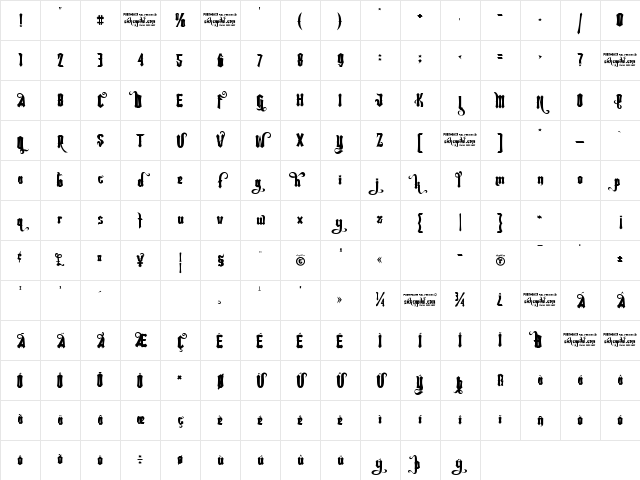
Rebel Pixy Regular Free Font
Rebel Pixy Regular
Rebel Pixy Family
Rebel Pixy Regular
Complete Rebel Pixy Regular glyph index. Displaying only characters natively supported by Rebel Pixy Regular font.
Design Context for Rebel Pixy
Rebel Pixy is a composed and adaptable typeface that performs quietly and consistently across a wide range of design contexts.